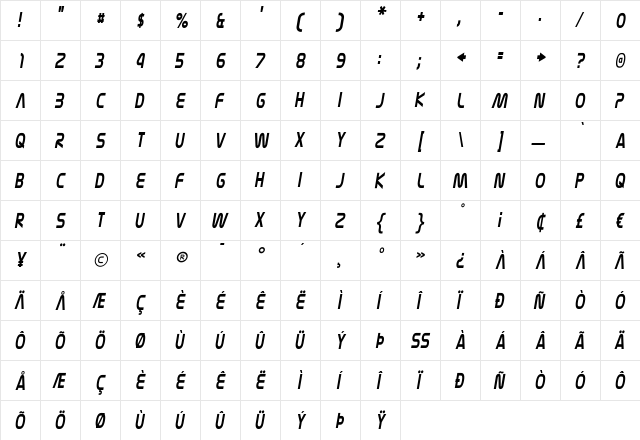
Nasalization Condensed Light Italic Font Preview
Design Context for Nasalization Condensed Light Typeface
Nasalization Condensed Light offers clean, dependable letterforms without strong stylistic allegiance, making it a practical choice for designers who need flexibility. The dynamic lean of this cut emphasises speed and emphasis in any layout. Its slender proportions lend an understated elegance to any composition. The condensed width makes it efficient for tight spaces without sacrificing legibility.
Pro Tip: Try Nasalization Condensed Light for annotation and caption copy alongside an upright companion — the contrast in angle creates a dynamic but ordered typographic system.